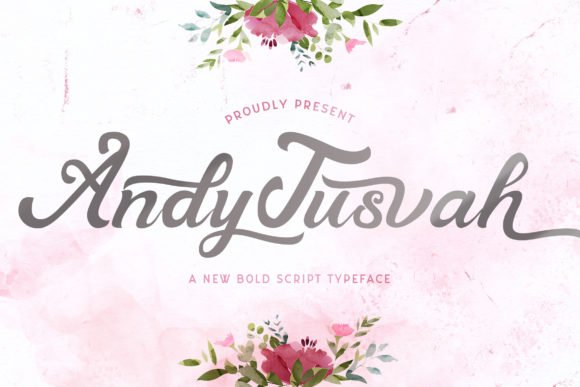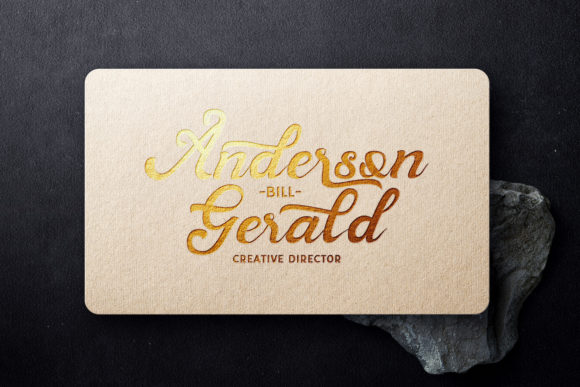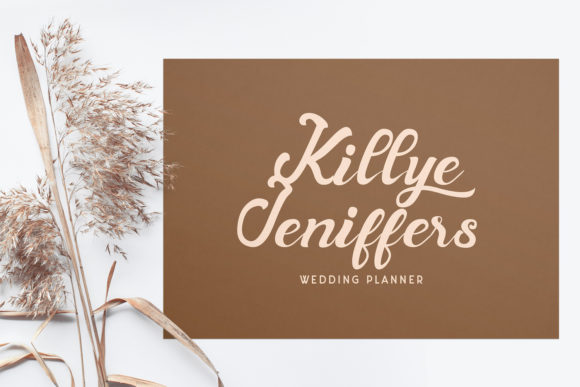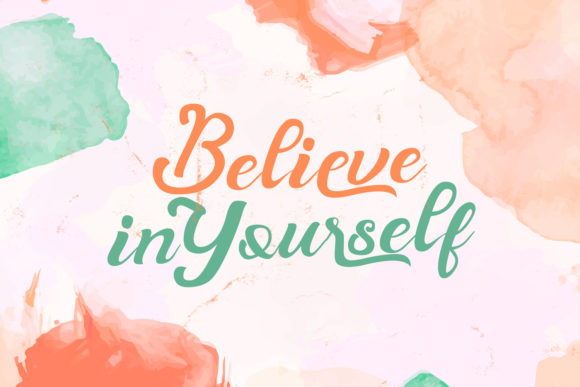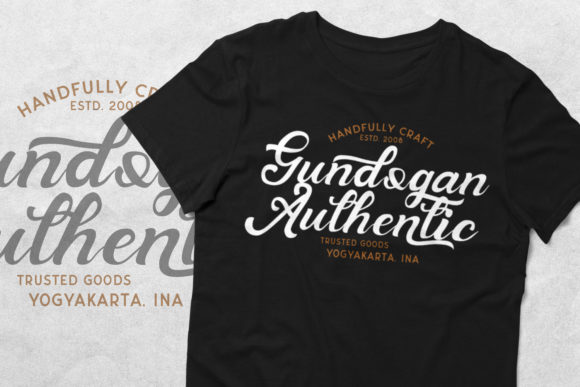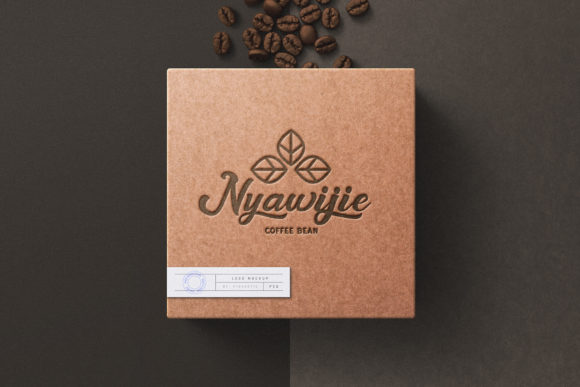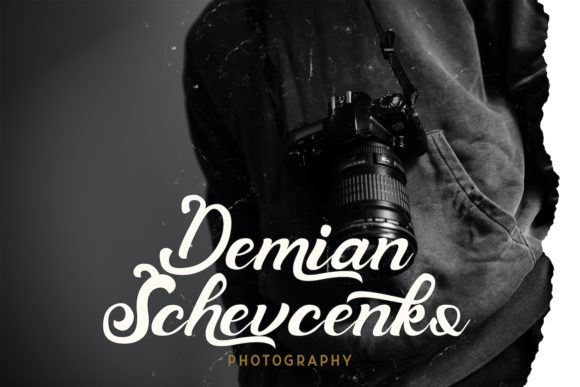
Discover the Timeless Elegance of the Andy Tusvah Font
There’s something special about scribbling down ideas on a piece of paper – the feel of the pen gliding across the page, the sound of the pen scratching against the paper, and the satisfaction of seeing your thoughts take shape. It’s a moment of pure creativity, where anything seems possible. And that’s exactly what the Andy Tusvah Font is all about – capturing the essence of handwritten elegance in a digital format.
This beautiful, flowing font is perfect for designers looking to add a touch of sophistication to their projects. With its distinct and timeless style, the Andy Tusvah Font is an invaluable tool for creating spectacular designs that leave a lasting impression. Whether you’re a graphic designer, a writer, or a artist, this font is sure to inspire your creativity and help you bring your vision to life.
Andy Tusvah Font Key Features
- Font Family: Andy Tusvah
- Unique Characteristic: The font features a unique blend of modern and traditional design elements, making it suitable for a wide range of applications, from digital displays to print materials
- Font Style: Available in Regular and Bold styles
Andy Tusvah Font Review
At first glance, the Andy Tusvah font appears to be a visually striking addition to any design project. ✨ Its unique blend of modern and vintage elements makes it a great choice for designers looking to add some personality to their work. ✨ The font’s bold lines and rounded edges give it a friendly, approachable feel that’s perfect for branding and marketing materials.
One of the things that really stands out about the Andy Tusvah font is its versatility. ✨ It can be used for a wide range of projects, from logos and business cards to website headers and social media graphics. The font is also highly customizable, allowing designers to tweak the spacing, size, and color to fit their specific needs.
However, there are a few limitations to the Andy Tusvah font that designers should be aware of. ⚠️ For one, the font can be a bit difficult to read at smaller sizes, particularly in low-resolution environments. ⚠️ Additionally, the font’s unique character set can make it challenging to pair with other fonts, which may limit its usability in certain design contexts.
- Unique blend of modern and vintage elements
- Bold lines and rounded edges for a friendly, approachable feel
- Wide range of uses, from logos to social media graphics
- Difficult to read at smaller sizes in low-resolution environments
- Can be challenging to pair with other fonts
The Andy Tusvah Font is ideal for creative projects, such as:
1. Magazine and newspaper designs.
2. Social media graphics and advertisements.
3. Branding and logo designs.
Remember to experiment with different font sizes, colors, and alignments to get the most out of the Andy Tusvah Font.
Alternatives to Andy Tusvah Font
The Great Vibes Font is a modern, elegant script font that is perfect for creating a sophisticated and stylish look. It’s ideal for use in branding, advertising, and editorial content where a touch of sophistication is required.
Compared to Andy Tusvah Font, Great Vibes Font has a more refined and polished look, making it suitable for high-end designs. It’s also more versatile and can be used in a variety of contexts, from fashion to luxury brands.
The Pacifico Font is a beautiful, handwritten script font that exudes a sense of relaxation and calmness. It’s perfect for use in designs that require a touch of warmth and personality, such as food and beverage packaging, wedding invitations, and travel brochures.
Compared to Andy Tusvah Font, Pacifico Font has a more laid-back and casual feel, making it ideal for designs that require a sense of approachability and friendliness.